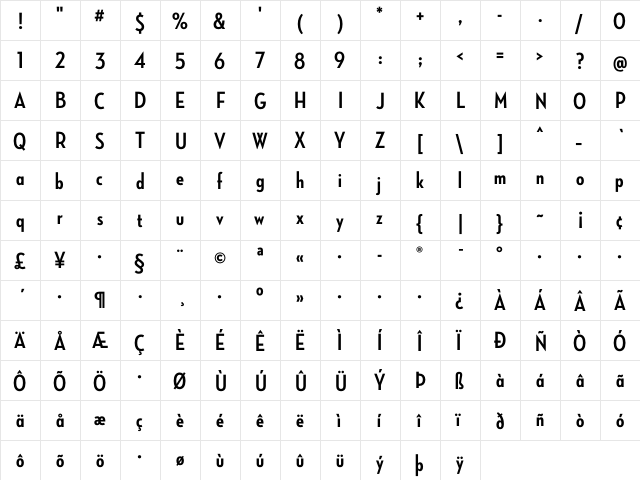
Neutraface Condensed Bold Alt
| Designer | Christian Schwartz |
Design Context for Neutraface Condensed Typeface
Neutraface Condensed offers clean, dependable letterforms without strong stylistic allegiance, making it a practical choice for designers who need flexibility. Its bold stroke weight gives it real presence on the page. Its narrow stance lets it pack a punch even in space-constrained designs.